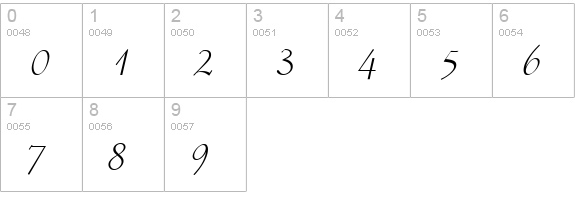
Deutch Light SSi Light Italic is a refined, elegant, italic variant in the Deutch typeface family \xE2\x80\x94 well suited to elegant body text, refined sub-headings, and luxury branding.
Deutch Light SSi Light Italic font is a sleek and elegant typeface that combines modern sophistication with a touch of playfulness. Its italic style adds a dynamic flair to any design project, making it a versatile choice for both headings and body text. The slender letterforms exude a sense of lightness and grace, making this font perfect for conveying a sense of elegance and refinement. What's even better is that Deutch Light SSi Light Italic font is available for free download at FontsMarket.com. This means you can easily access this stylish typeface and use it in your creative projects without any cost. Whether you're designing a website, creating marketing materials, or crafting brand identities, Deutch Light SSi Light Italic font is sure to elevate your work with its unique charm and effortless sophistication.